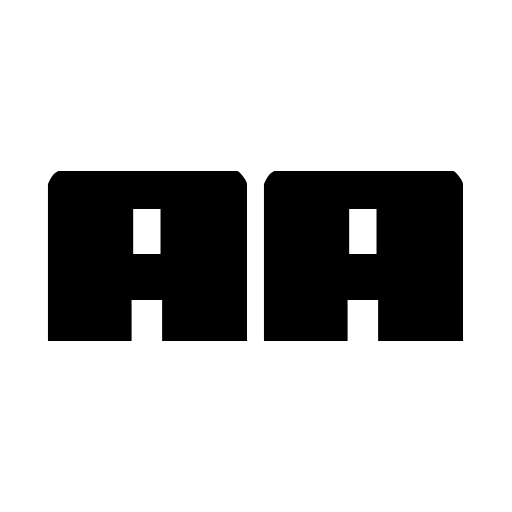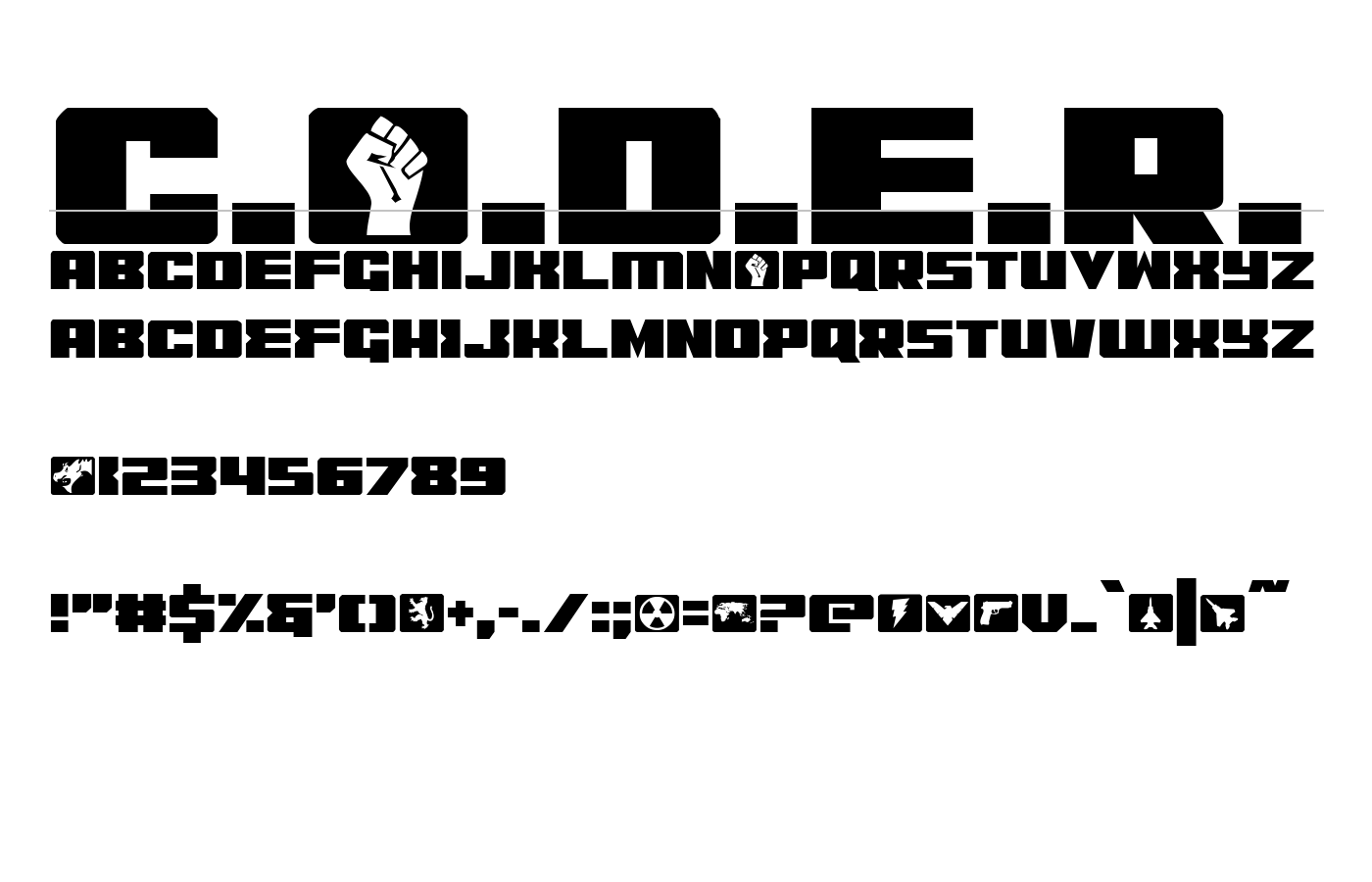
C.O.D.E.R. is a bold, blocky sans serif font with a strong, futuristic feel, characterized by its thick, uniform strokes and squared-off edges. Its tall, compact letterforms and tightly spaced characters give it an industrial, tech-inspired personality, making it ideal for impactful headlines, logos, or branding that requires a modern, powerful presence. This font works well in designs related to gaming, technology, or urban themes where a sturdy, commanding aesthetic is desired.
C.O.D.E.R. Font
About C.O.D.E.R. Font